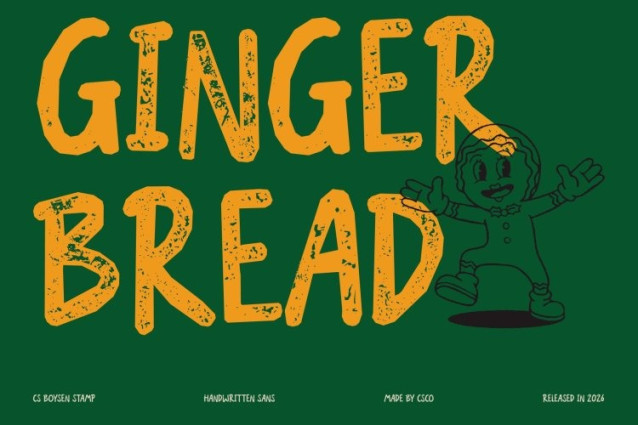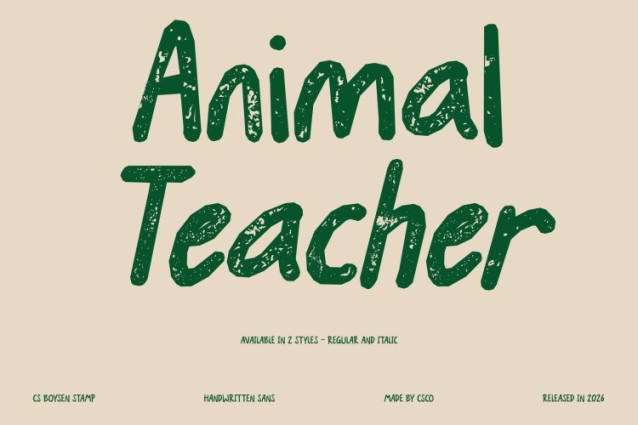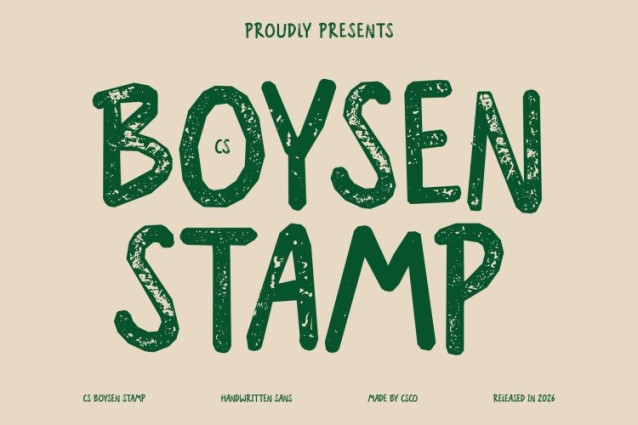
CS Boysen Stamp Font This enhances its cheerful handwritten style with a subtle stamped texture that adds warmth and handcrafted appeal. The rounded sans serif strokes remain soft and approachable, while gentle ink variations and lightly imperfect edges give the font an authentic, tactile quality like a joyful imprint on paper.
Rounded Strokes with Organic Warmth
The smooth, flowing curves create a welcoming and comforting impression, now enriched with a textured finish that adds personality and depth. Each letter feels lively and genuine, preserving its spontaneous charm while introducing a playful, print-inspired character.
Playful Energy with Expressive Detail
Its quirky letterforms and rhythmic flow become even more engaging with the stamped effect. The added texture enhances the sense of movement and creativity, making every word feel dynamic and full of life perfect for designs that celebrate imagination and positivity.
Perfect for Whimsical and Heartfelt Designs
Ideal for children’s books, educational materials, party invitations, cheerful branding, packaging, and social media graphics, radiates friendliness and joy. It brings a delightful handcrafted atmosphere to both print and digital projects, ensuring every message feels warm, expressive, and irresistibly fun.